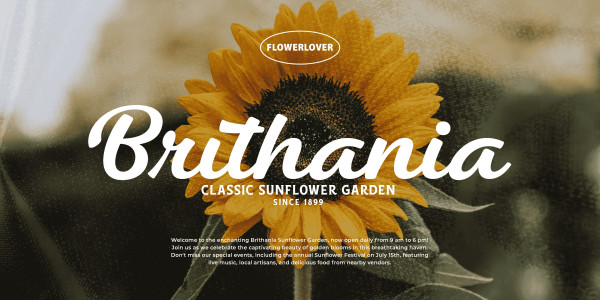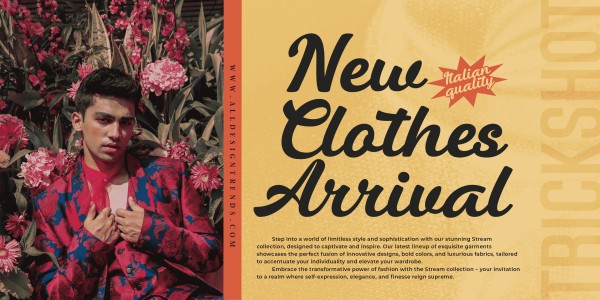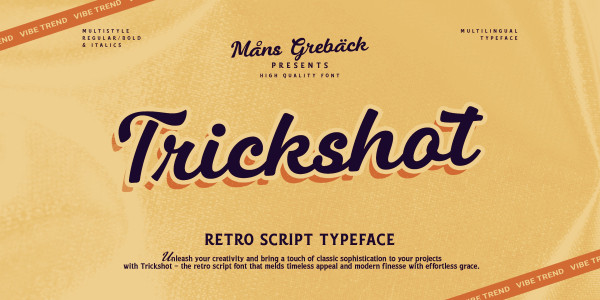
Trickshot Retro Font
Trickshot Retro Font, is a handmade script font that evokes a sense of rustic charm and enthusiasm. Its expressive style makes it a good choice for designs that require a strong visual impact, such as a sports team logo.